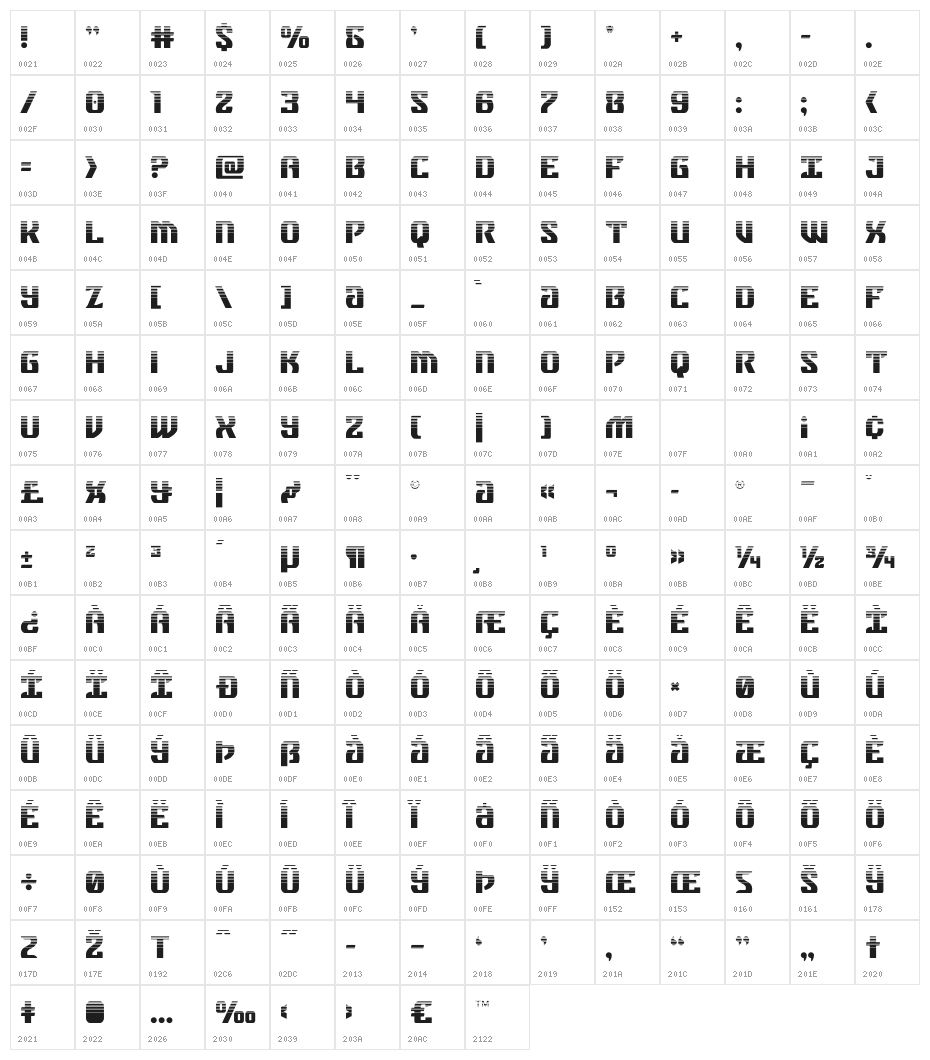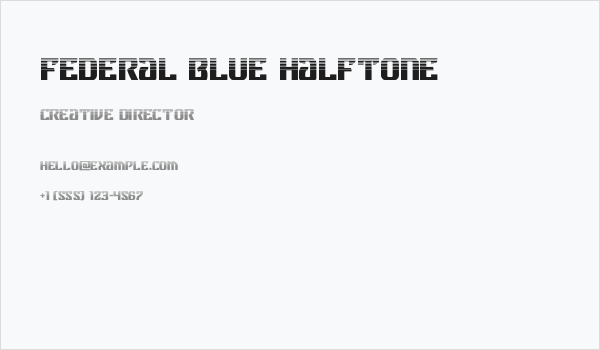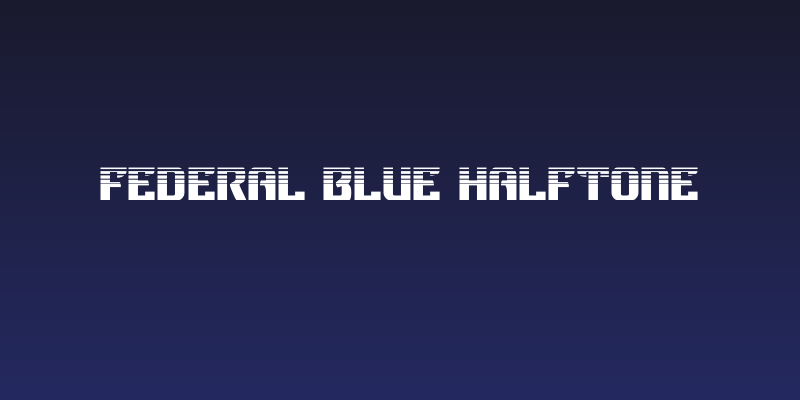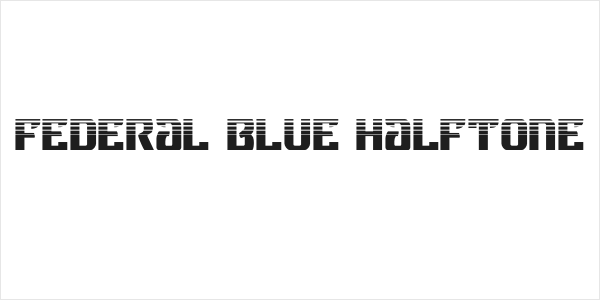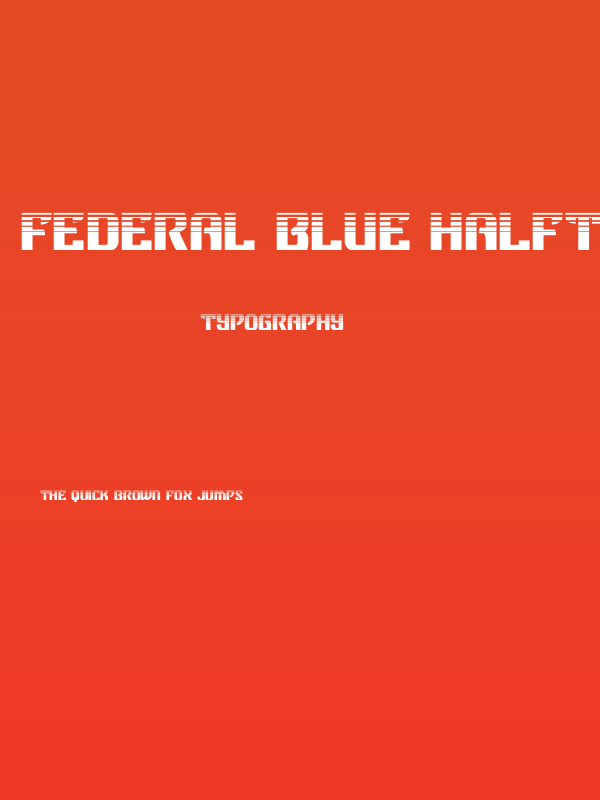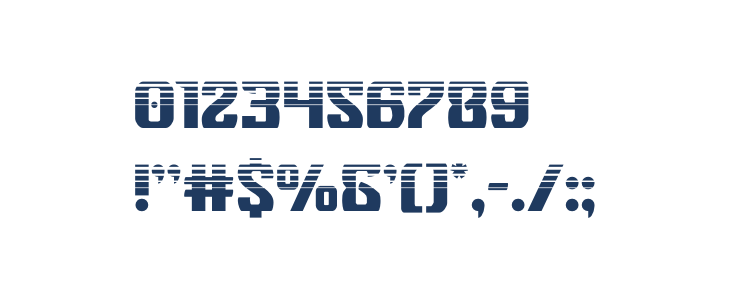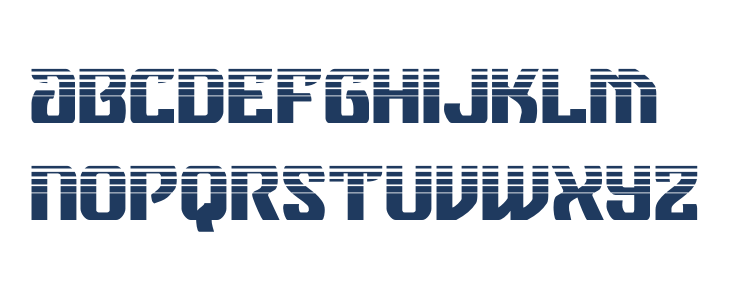
Federal Blue Halftone Font
Federal Blue Halftone Description
This font features a bold, modern design with a distinct halftone pattern that creates a sense of movement and energy. The uppercase and lowercase letters are designed with a consistent width, giving a uniform appearance across all characters. The numbers and special characters maintain the same stylistic elements, ensuring a cohesive look. The halftone effect is achieved through horizontal lines that cut through the characters, adding a unique texture and depth. This font is ideal for projects that require a futuristic or dynamic aesthetic, making it suitable for branding, posters, and digital media.
| Proposed Projects | Ideal for branding, posters, digital media, and projects requiring a futuristic or dynamic look. |